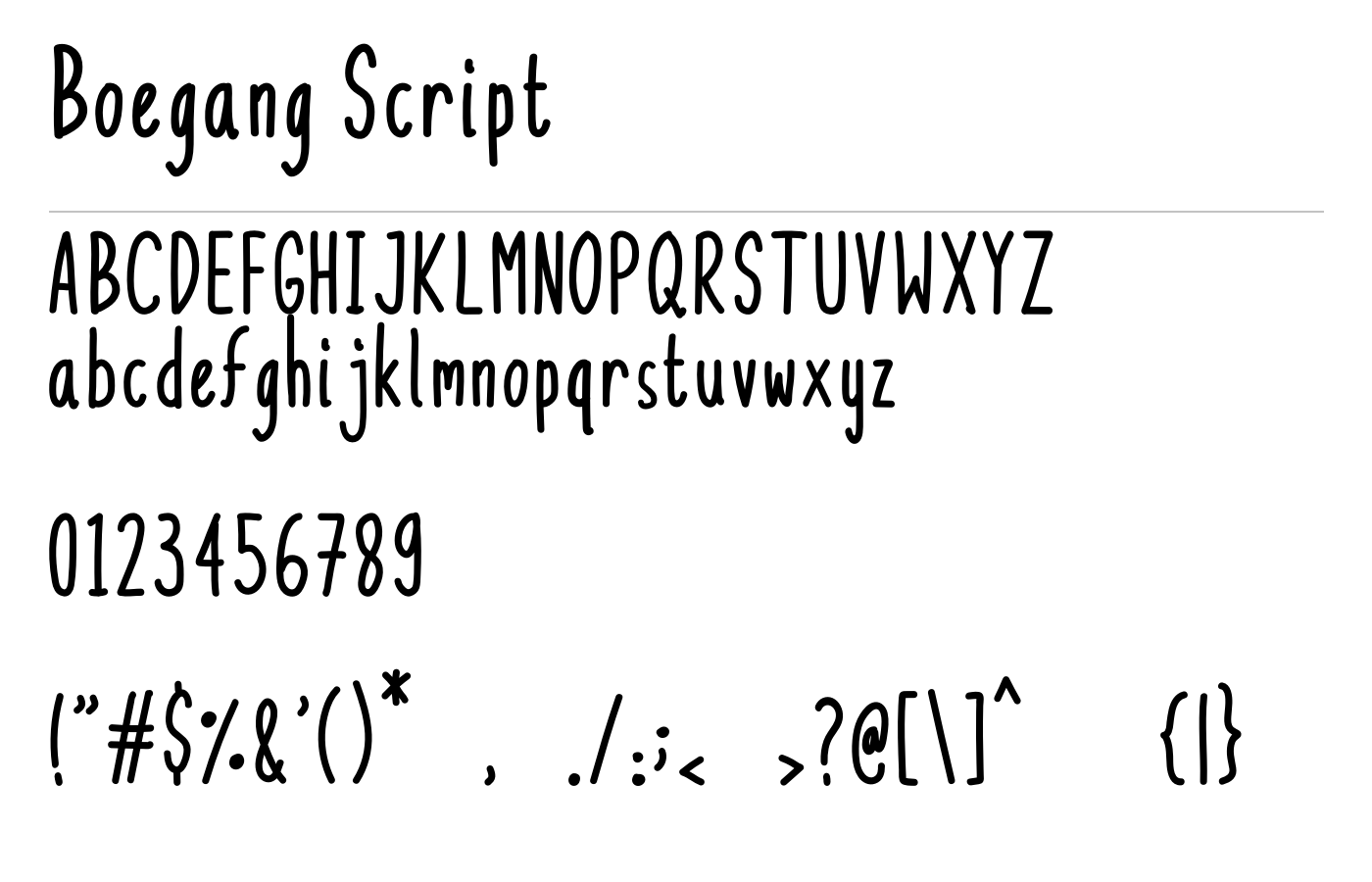
Boegang Script is a playful and casual handwritten font with a tall, narrow structure and rounded stroke endings that give it a friendly, approachable feel. Its consistent stroke weight, quirky letterforms, and clear readability make it ideal for creative projects, casual branding, and informal communications that need a personal touch. This font works well in headlines, invitations, and packaging where a fun, warm personality is desired.
Boegang Script Font
About Boegang Script Font